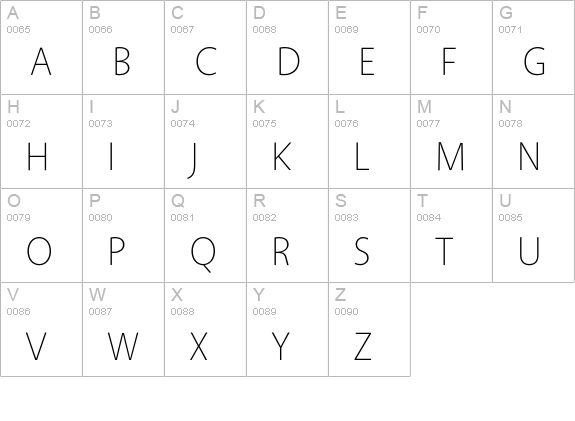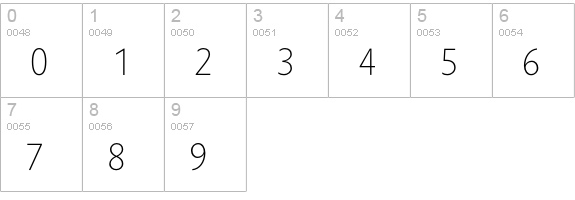
Vegur Light Font Details
Vegur Light is a refined, elegant variant in the Vegur typeface family \xE2\x80\x94 well suited to elegant body text, refined sub-headings, and luxury branding.
Vegur Light is a modern and versatile font that exudes elegance and sophistication. With its clean lines and effortlessly legible design, this font is perfect for a wide range of projects, from branding and logos to website design and print materials. What sets Vegur Light apart is not just its impeccable style, but also the fact that it is free to use. Yes, you heard that right! This font is freely available to download at FontsMarket.com, making it accessible to anyone who wants to add a touch of class to their creations without breaking the bank. Whether you're a professional designer looking for a reliable and visually appealing font or an aspiring creative exploring typography for the first time, Vegur Light is a fantastic choice. Its versatility allows it to seamlessly adapt to various design concepts, ensuring that your message is conveyed with clarity and finesse. So don't miss out on the opportunity to enhance your projects with this stunning font. Download Vegur Light for free at FontsMarket.com and let your creativity soar to new heights.